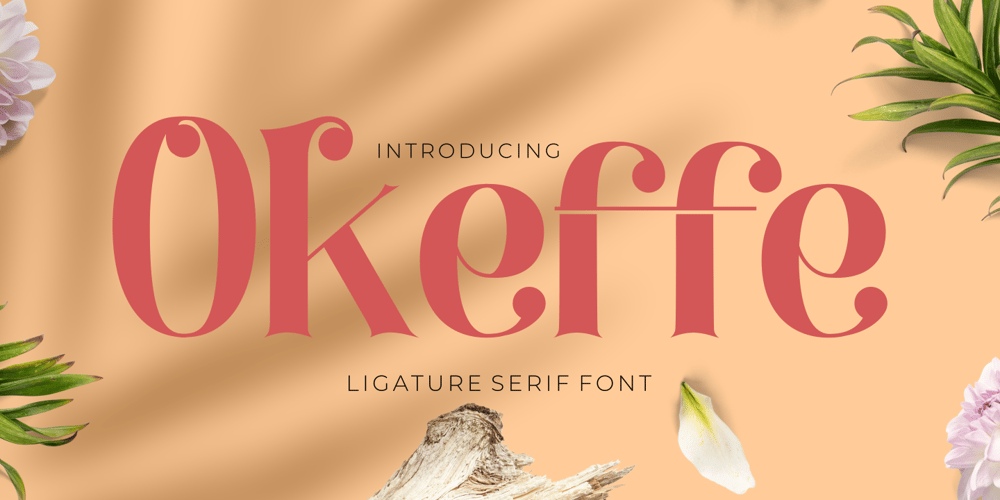
Okeffe
Okeffe font
Okeffe Font Family was designed by Putra Novembria Candra Kusuma and published by Putracetol. Okeffe contains 1 styles and family package options. OKEFFE is a amazing serif font with beautiful ligatures, tons of alternative glyphs and multilingual support. It’s groovy, clean and unique with vintage fell. OKEFFE is very versatile font that works great in large and small sizes. Helps to create layout design in 60s or 70s design projects.Come with open type feature with a lot of alternates, its help you to make great lettering.OKEFFE best uses for heading headlines, cover, poster, logos, quotes, product packaging, merchandise, social media & greeting cards and many more.This font is also support multi language.To access the alternate glyphs, you need a program that supports OpenType features such as Adobe Illustrator CS, Adobe Photoshop CC, Adobe Indesign and Corel Draw.